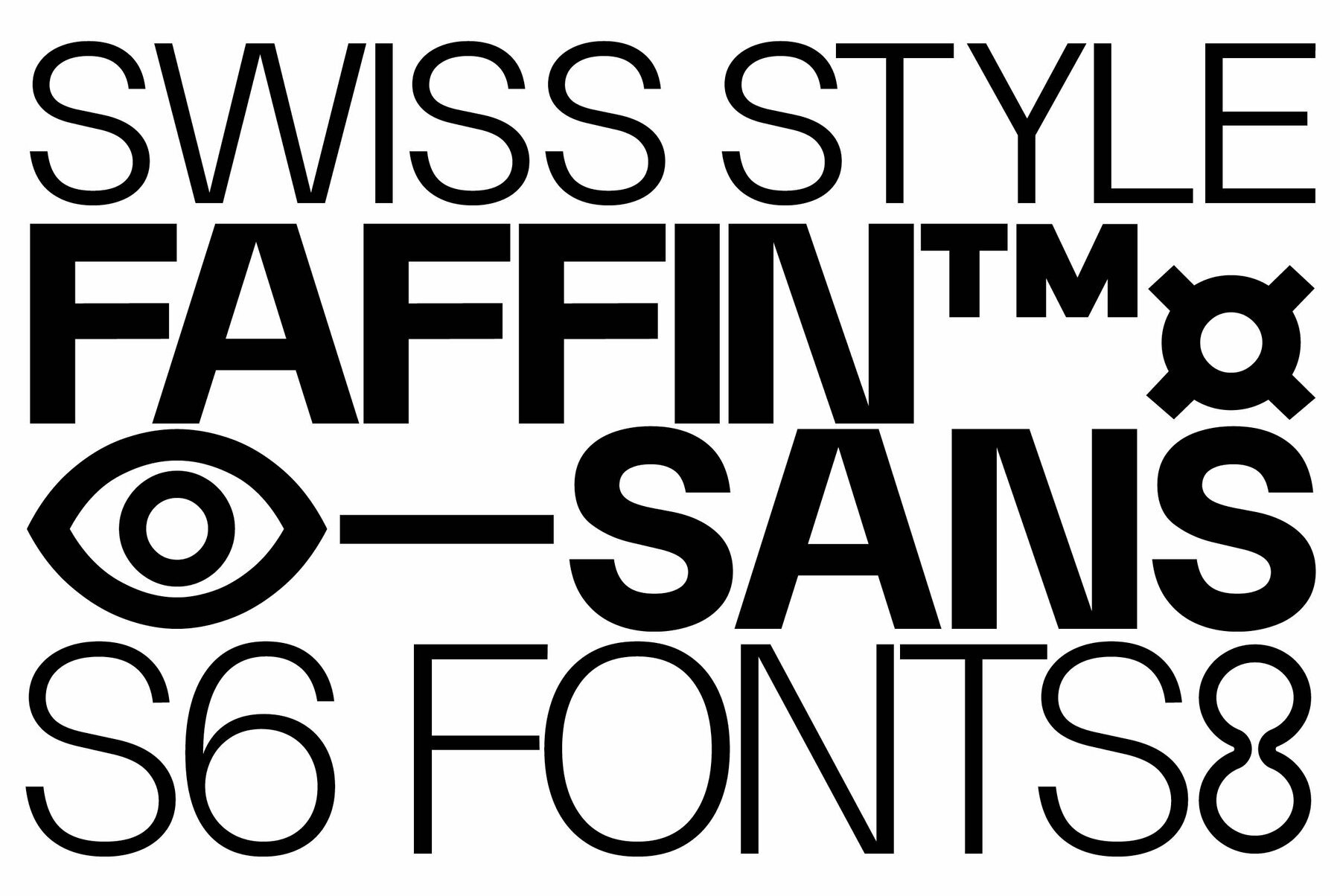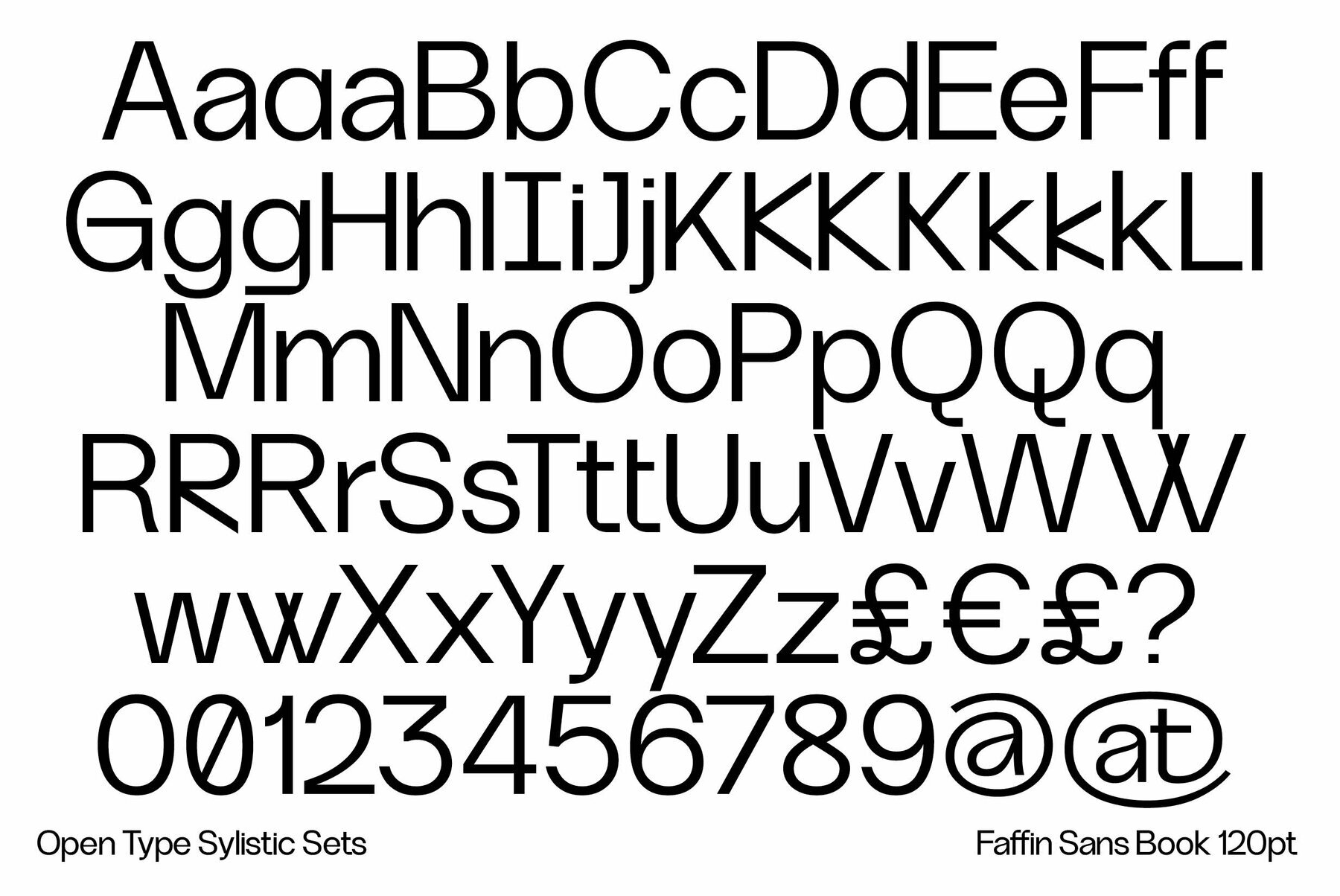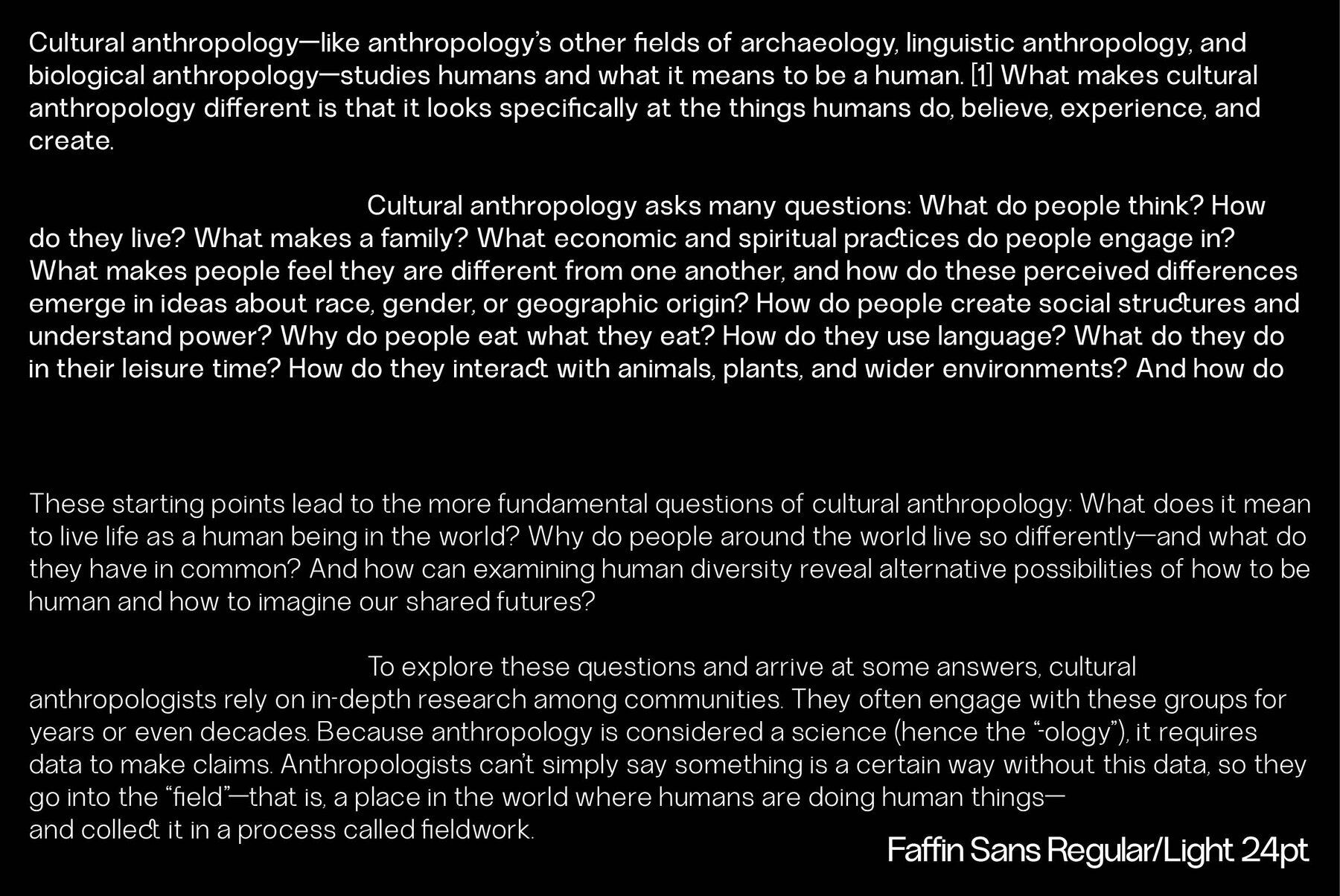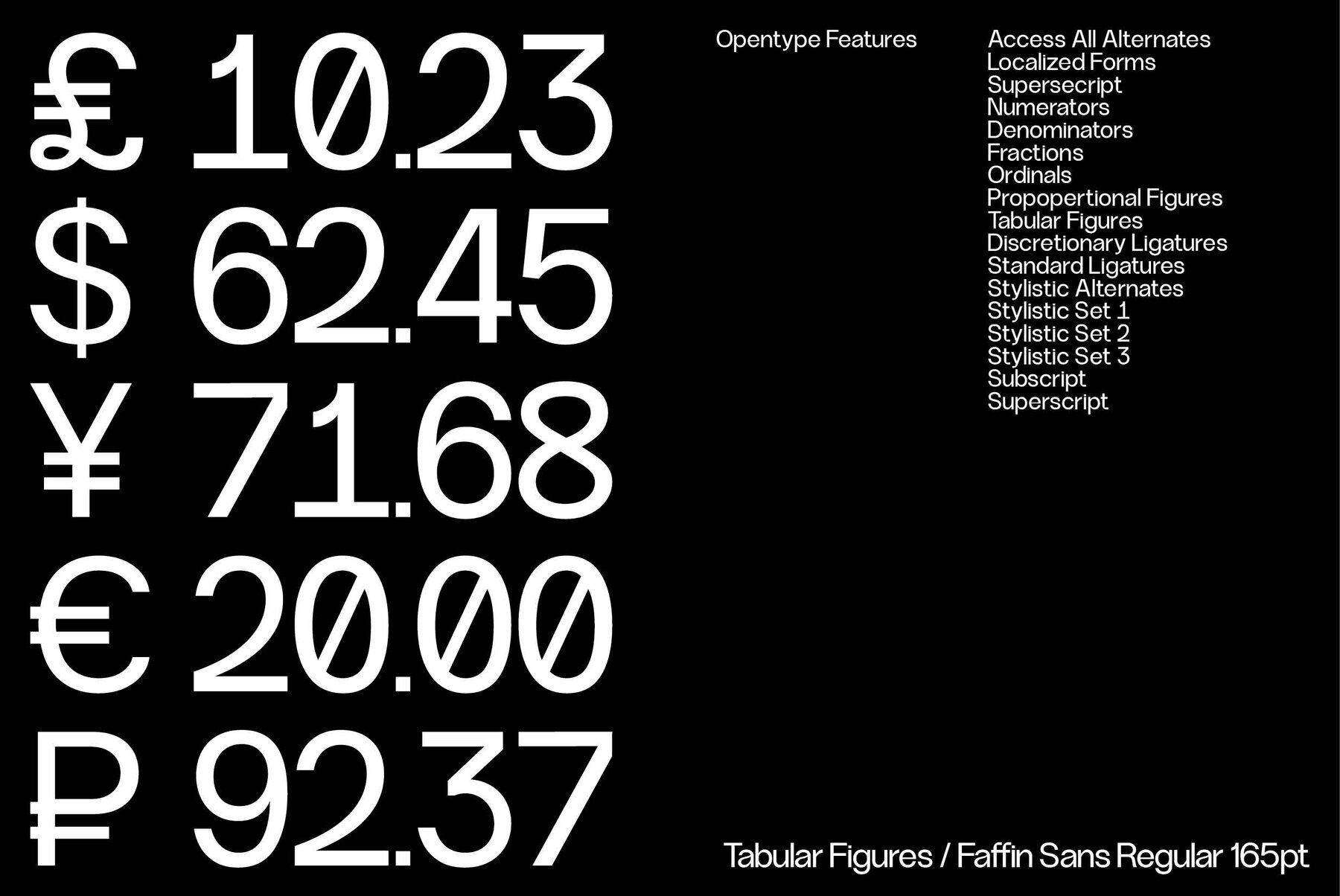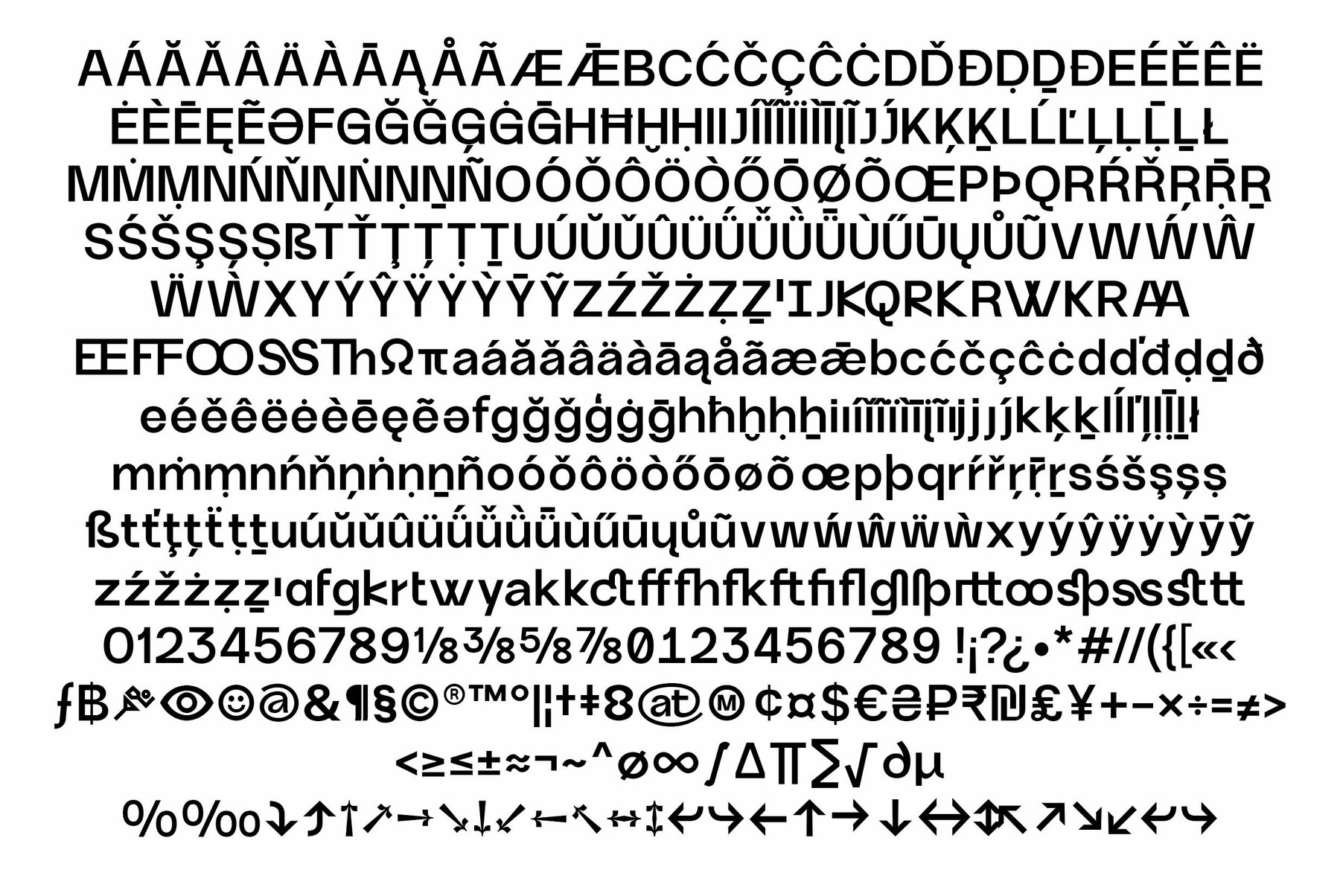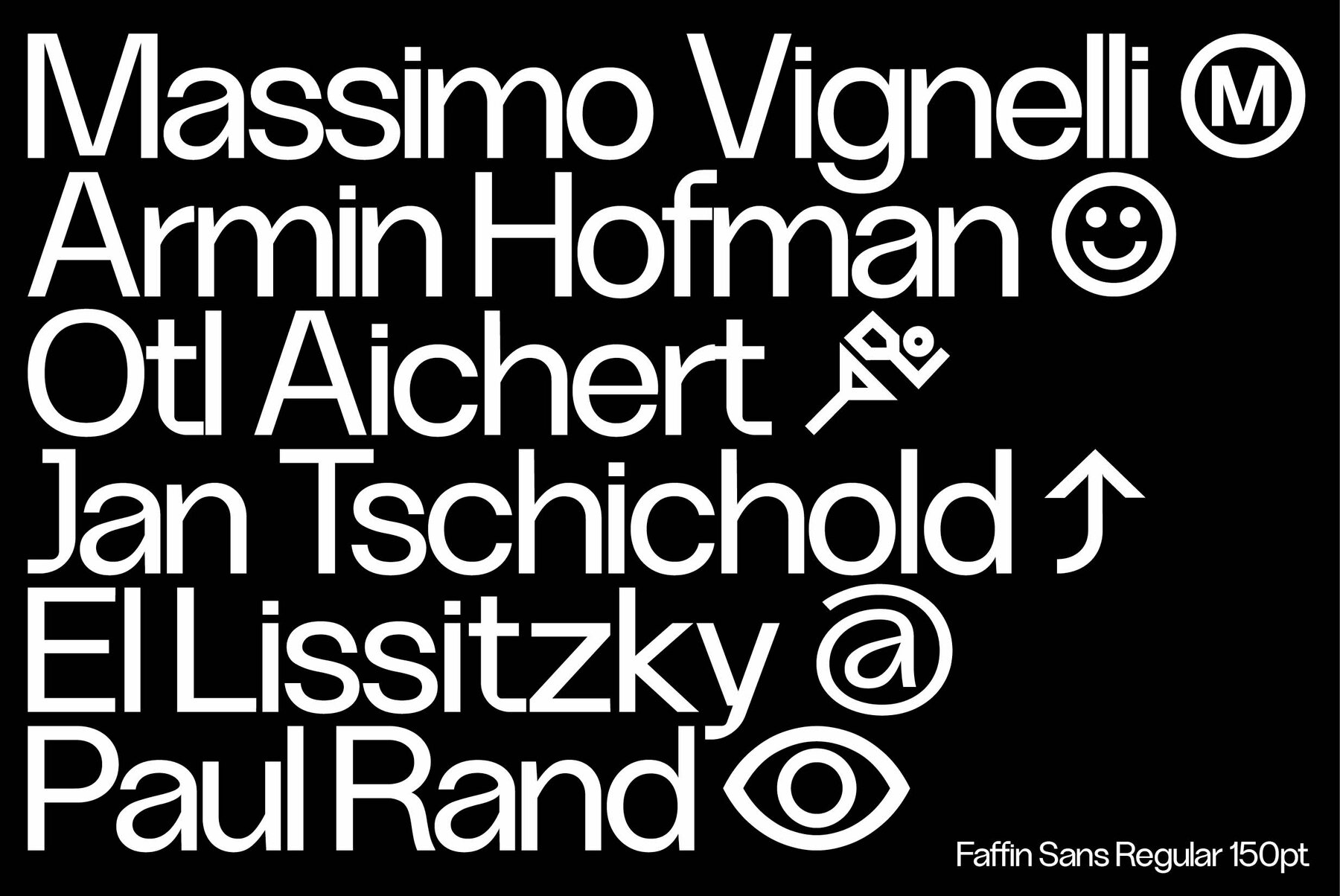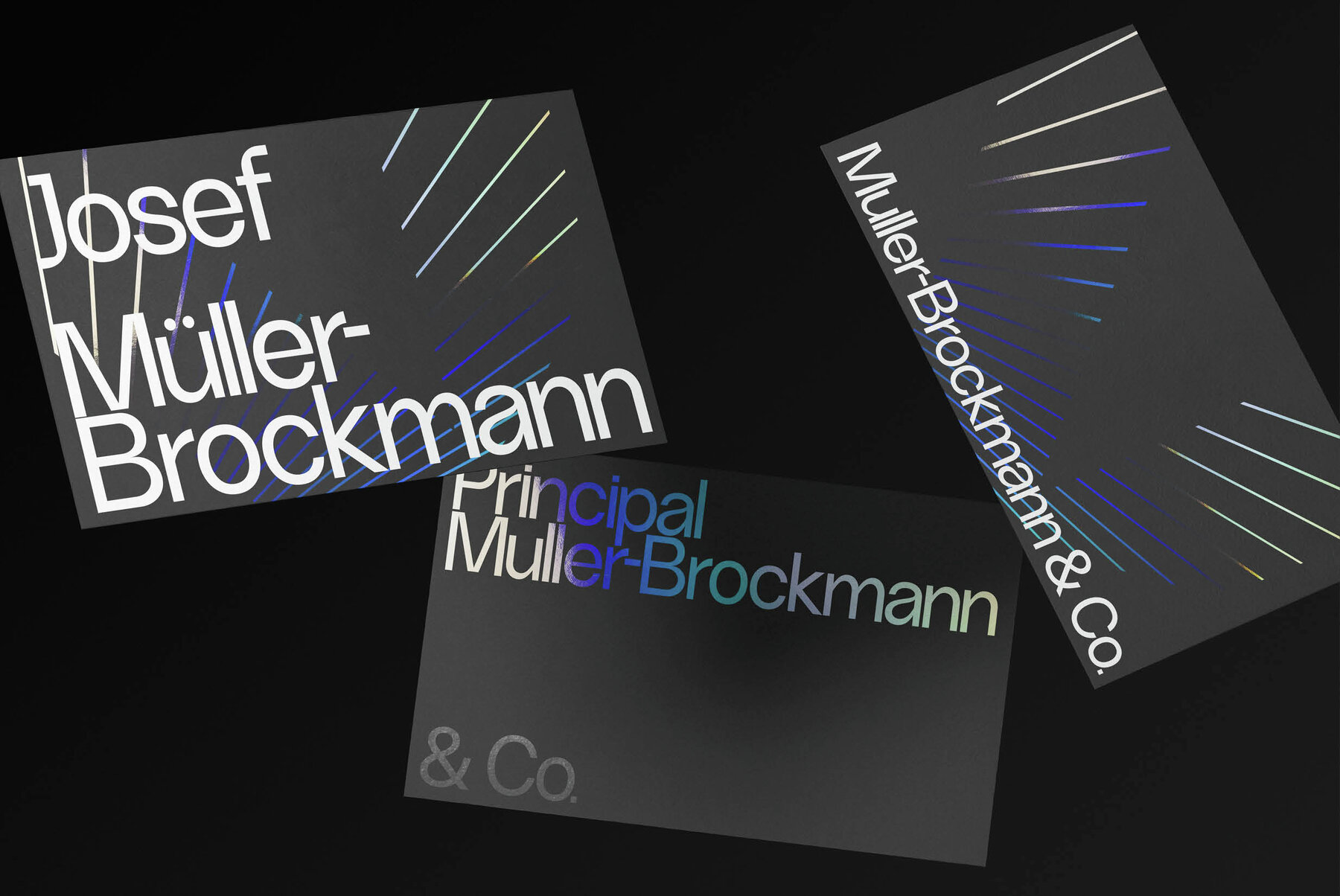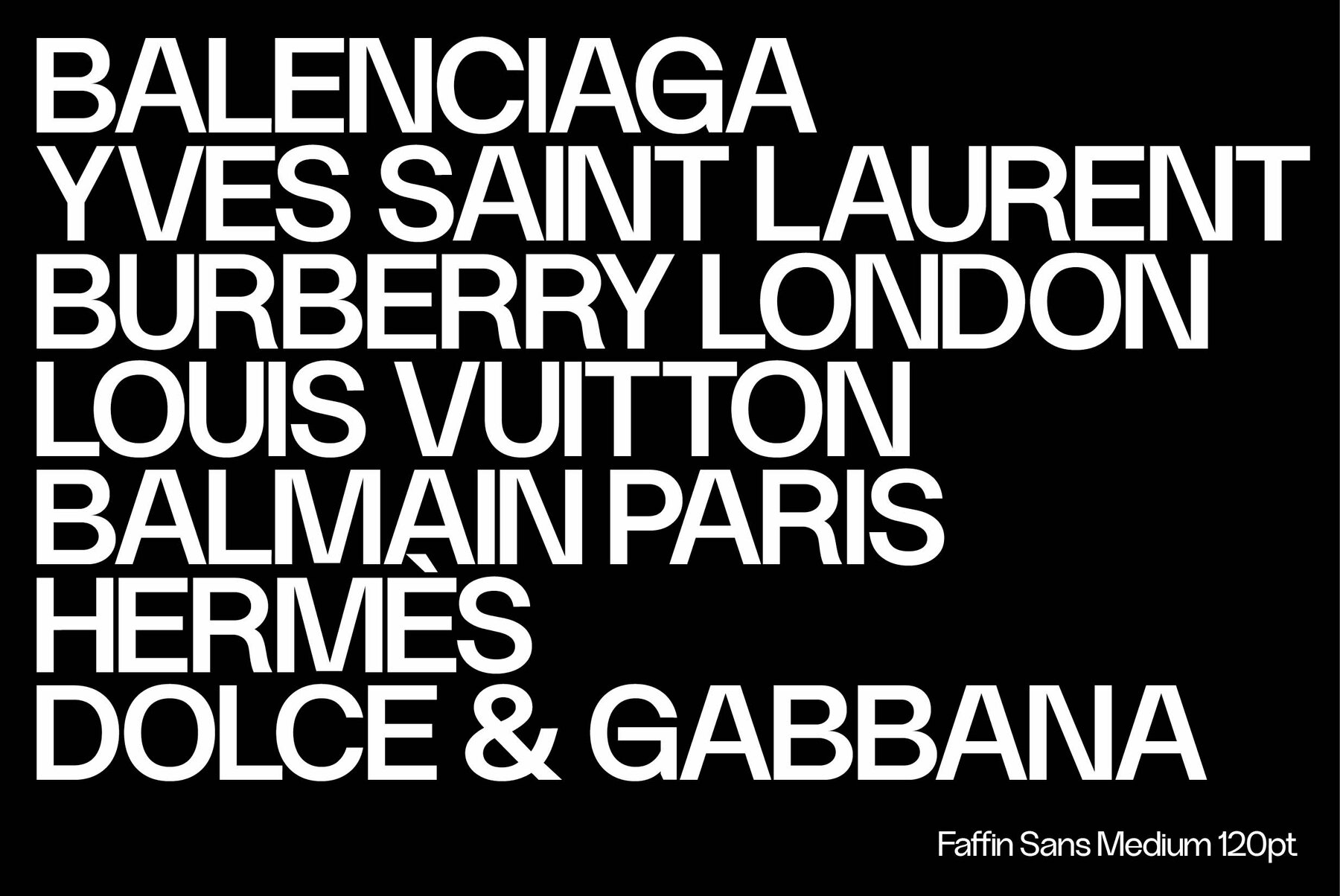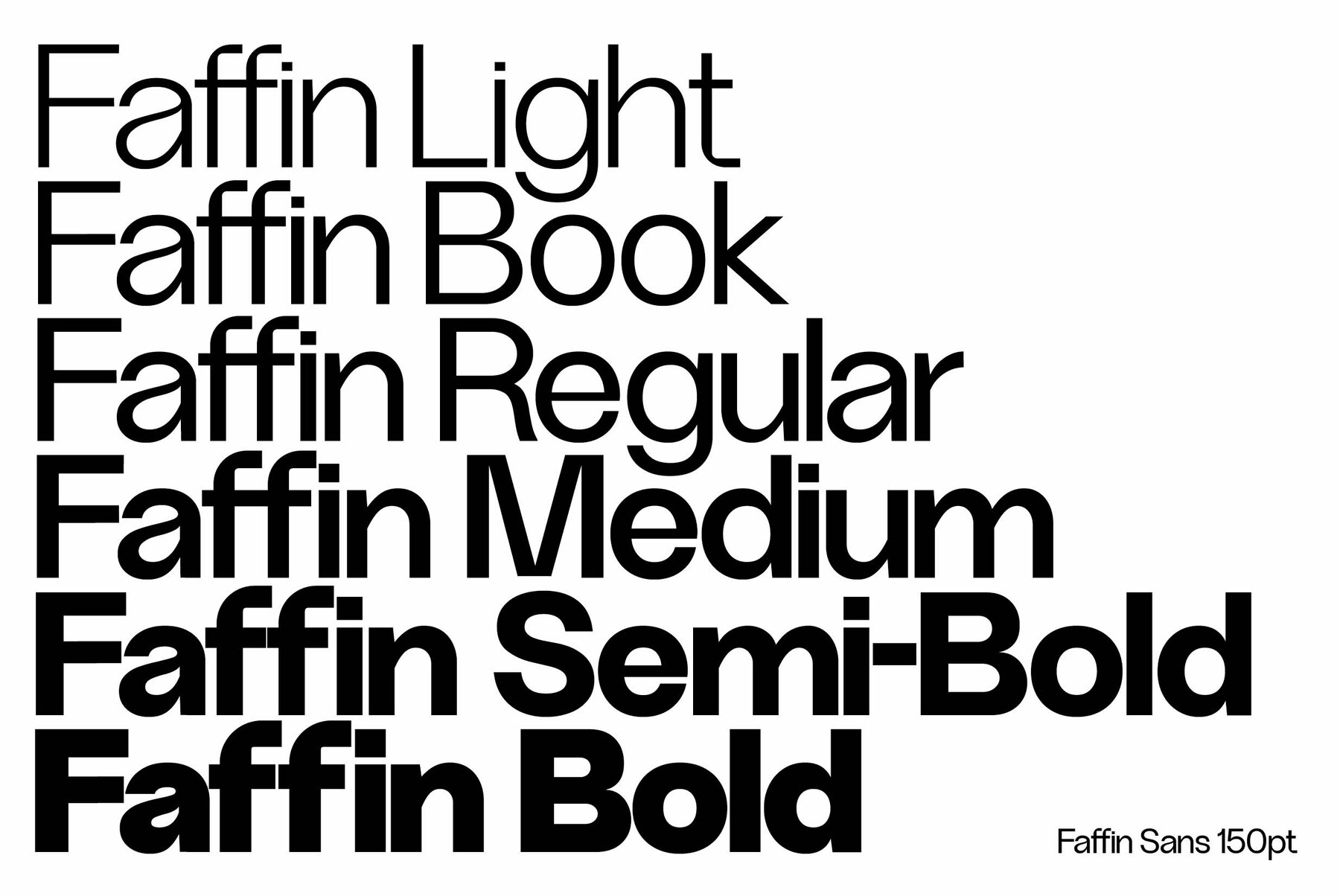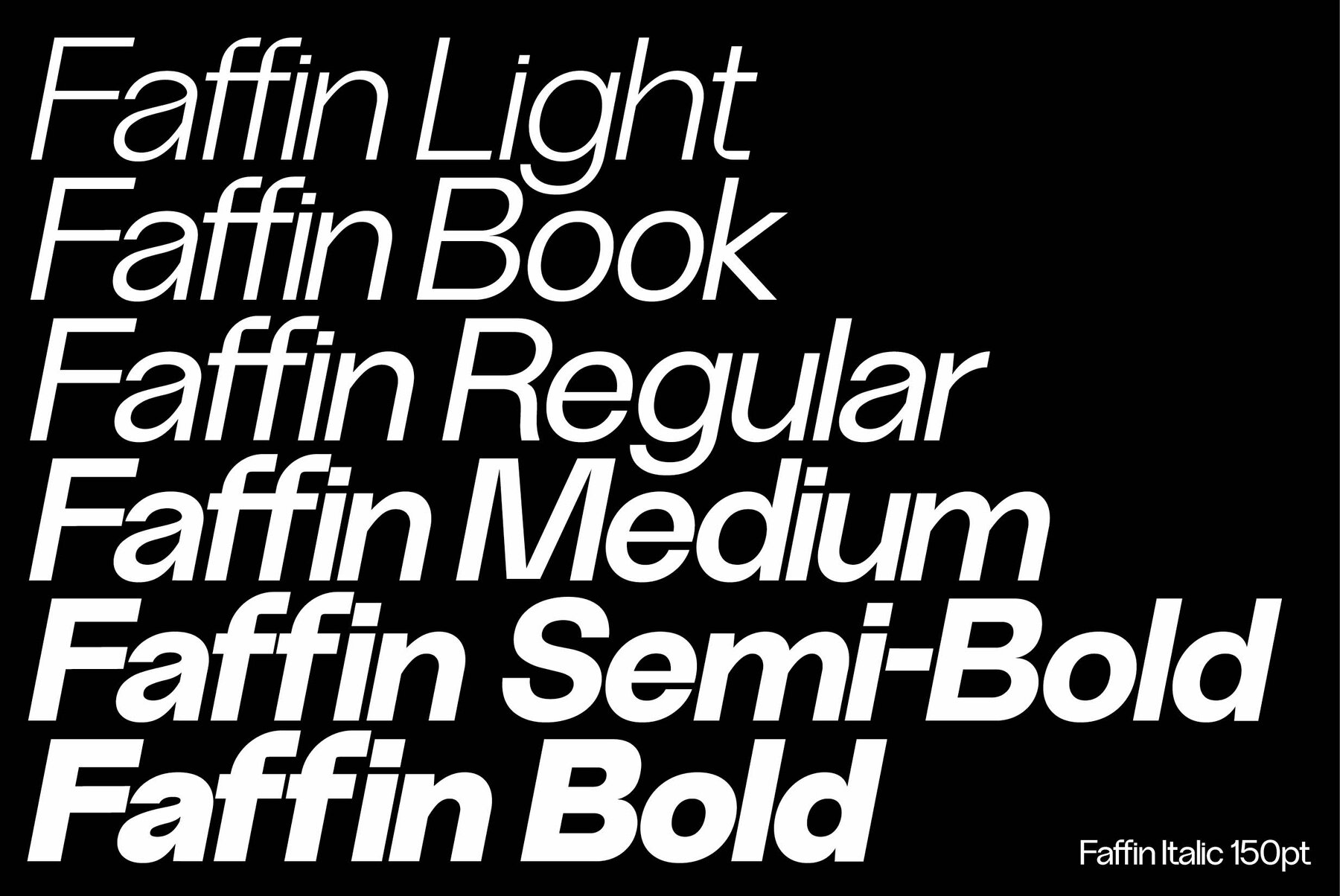
Faffin Sans Font
Faffin Sans epitomizes enduring modernity in typography, radiating both style and individuality. Drawing inspiration from the impartiality of Swiss type design, this font is meticulously fashioned with contemporary, distinctive shapes and curves. It provides impeccable visual uniformity for branding and communication endeavors. Comprising more than 550 glyphs, Faffin Sans incorporates stylistic sets, OpenType features, Tabular Figures, and Discretionary Ligatures. Faffin Sans, extends support to all Latin Extended languages and encompasses a versatile range with 6 weights and their corresponding italics.